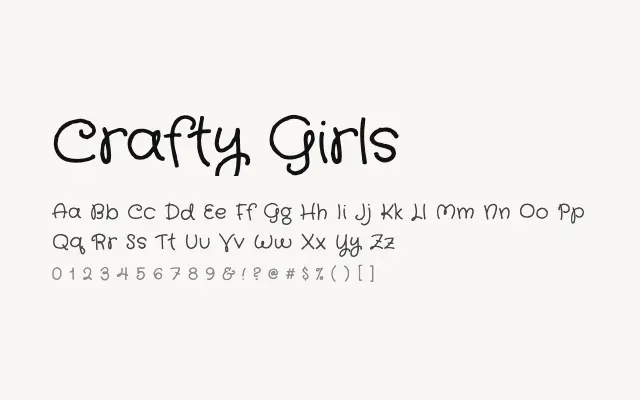
Crafty Girls
A quirky, childlike handwriting script with strong novelty appeal and a deliberately crafted imperfection.
Crafty Girls is designed to evoke the kind of cheerful, slightly wobbly lettering found on hand-made greeting cards and children's craft projects. It has a very specific personality that works for playful branding, children's content, and informal invitations, but its narrow use case makes it a one-trick font. Limited to a single weight and Latin only, it offers little flexibility beyond its niche.
Crafty Girls is a whimsical, childlike handwriting font with irregular letterforms, mixed cap heights, and a distinctly playful, arts-and-crafts aesthetic. It reads more as a novelty display face than a functional script.